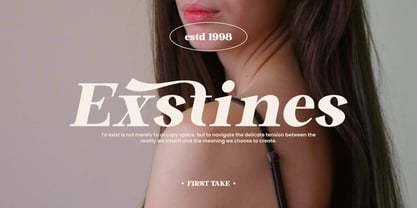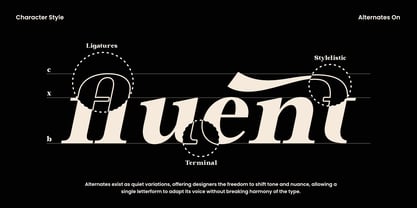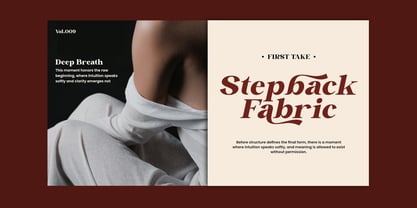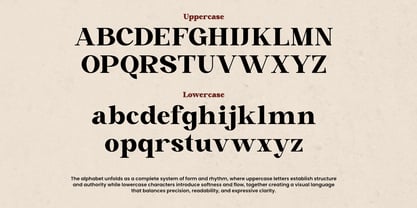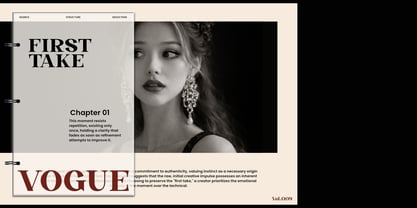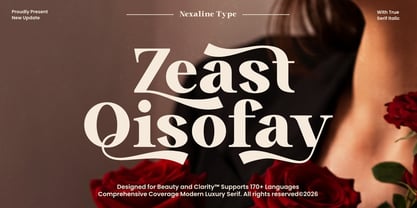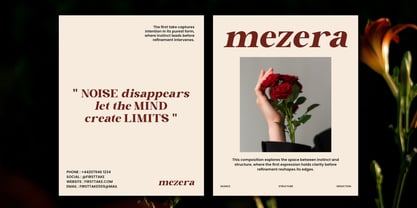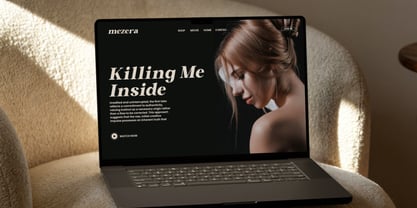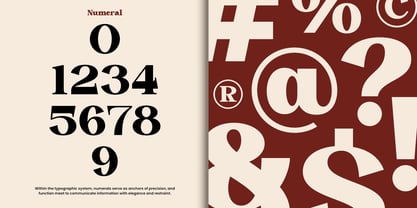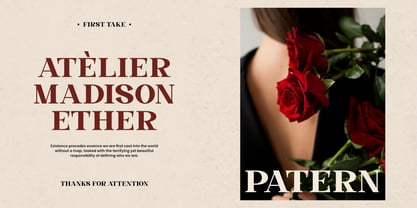
NL Zeist Qisofay
by Nexaline Type
The NL Zeist Qisofay Font Family was designed by Zaidan Akbar and published by Nexaline Type. NL Zeist Qisofay contains 2 styles and family package options. More about this family
Zeist Qisofay — Modern Elegant Font is a refined display typeface designed for sophisticated visual identity and contemporary elegance. With graceful curves, refined serif details, and expressive letterforms, Zeist Qisofay delivers an elegant typographic voice with a modern sensibility. Its balanced contrast and decorative flow create a visually rich appearance without overwhelming readability. Designed to emphasize elegance and character, this typeface combines classic serif foundations with modern styling, making it suitable for branding projects that require a stylish and expressive typographic presence. Thoughtful proportions and elegant detailing allow Zeist Qisofay to adapt beautifully across premium design contexts. Whether used for brand identities, editorial headlines, fashion graphics, or lifestyle-oriented visuals, this typeface adds refinement and modern charm to contemporary design projects. Features Uppercase & Lowercase Numbers & Punctuation Modern Elegant Construction Multilingual Support (170+ Languages)
Designers: Zaidan Akbar
Foundry: Nexaline Type